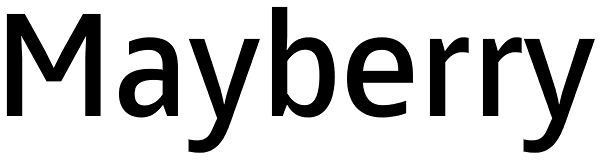
Mayberry
Mayberry was designed for use in set top TV devices. Originally designed to emulate the technical behavior of Tiresias, its designer has taken the liberty to improve upon its readability and aesthetics. Counter shapes are left open to prevent...